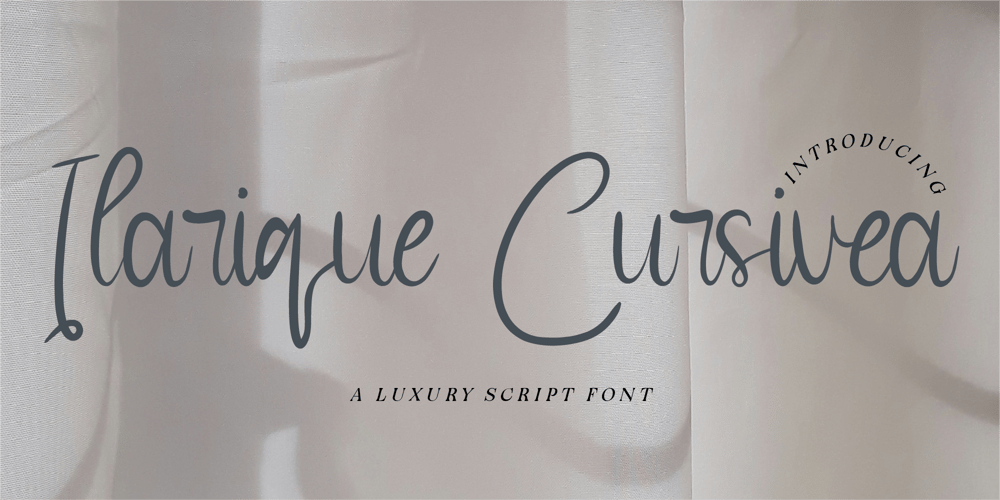
CF Ilarique Cursivea Font Family was designed by Gilang Mei Nugraha, Frederik Aristaputra and published by Creatifont Studio. CF Ilarique Cursivea contains 2 styles and family package options. Ilarique Cursivea – A Timeless Luxury Script FontIndulge in the refined beauty of Ilarique Cursivea, a sophisticated luxury script font that exudes grace, elegance, and effortless charm. With its delicate curves, fluid strokes, and exquisite letterforms, this typeface is designed to bring a touch of high-end sophistication to your creative projects.Perfect for wedding invitations, upscale branding, editorial designs, fashion labels, and luxury product packaging, Ilarique Cursivea captures the essence of modern refinement while maintaining a beautifully handcrafted feel. The balanced contrast and airy flow make every word look effortlessly stylish and polished.Why Choose Ilarique Cursivea?✨ Timeless Elegance: A sophisticated script that embodies luxury and class.💎 Fluid & Graceful: Soft, natural strokes that create a harmonious flow.🎀 Perfect for Premium Branding: Ideal for wedding stationery, fashion, and beauty industries.🖋 Exquisite Readability: Designed for both beauty and clarity, making it versatile for any high-end project.Elevate your brand with Ilarique Cursiva—a script font that speaks the language of luxury and refinement. Download now and transform your designs into masterpieces! ✨💫A SUMMARY OF WHAT’S INCLUDED:- Standard Character A-Z, a-z, 0-9, Punctuation & symbols- Regular and Italic- Works on PC & Mac- Simple installation- Accessible in Adobe Creative Suite (Ai, Ps, Id, etc.) even work on Microsoft Word.- PUA Encoded Characters – Fully accessible without additional design software.🌟If you come across any issues or notice anything we might have overlooked while using this product, please feel free to reach out to us. We greatly value your feedback as it helps us enhance and refine our products. Thank you!